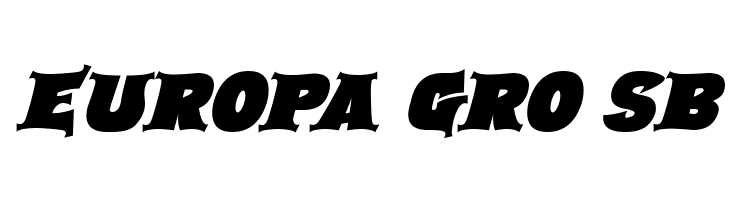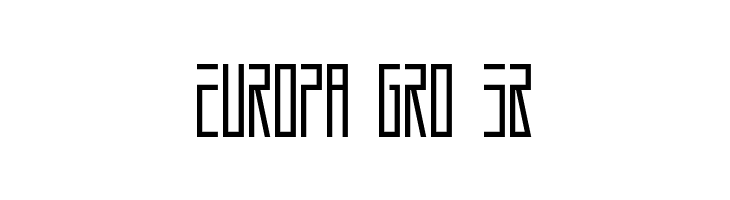
( Fonts by Alfin Ridhowi )
A playful and whimsical font with bold, rounded shapes and a hand-drawn feel.
A playful and whimsical script font with a hand-drawn appearance.
( Fonts by Dm Letter Studio )
Playful and bold handwritten font.
A whimsical, handwritten font with a playful and modern style.
A playful, handwritten font with thin, flowing lines and a whimsical style.
( Fonts by Ditya Ananto )
A playful, decorative font with sunburst patterns in each character.
A bold, geometric font with a 3D effect and textured interior.
( Fonts by Rodrigo German - RASDESIGN )
A bold, graffiti-inspired font with sharp, angular edges and dynamic style.
( Fonts by Novita Maria )
A bold, playful font with rounded strokes and a cartoonish style.
( Fonts by Display Studio )
A bold, angular font with a modern, edgy style.
( Fonts by Mohammed Rahman )
A bold, geometric font with a retro aesthetic, ideal for impactful designs.
( Fonts by Mohammed Rahman )
A bold, italicized retro font with high contrast and dynamic style.
A bold, angular font with a dynamic and energetic style.
A bold, graffiti-inspired font with sharp angles and high contrast.
A bold, modern font with strong, uniform strokes and high legibility.
A playful and elegant cursive font with fluid, graceful strokes.
A playful, candy-inspired font with bold, rounded letters connected by circular elements.
A playful and elegant script font with a modern, handwritten style.
A whimsical, curly font with intricate swirls and consistent stroke thickness.
A whimsical, spiral-themed decorative font with playful, artistic strokes.
A playful, whimsical script font with smooth, flowing lines and a handwritten feel.
( Fonts by Haidi Shabrina )
A whimsical, handwritten font with flowing, interconnected strokes.
A playful, handwritten font with elongated, whimsical characters.
A whimsical and decorative script font with intricate loops and flourishes.
A playful, hand-drawn font with tall, narrow characters and a whimsical style.
( Fonts by Letterafa Studio )
A whimsical and playful script font with decorative swirls and loops.
( Fonts by Staircase Studio )
Expressive handwritten script with playful, dynamic strokes.
A bold, cursive font with a lively, handwritten style.
A whimsical and decorative font with swirling embellishments.
A dynamic and flowing script font with elegant, cursive strokes.
A sharp, aggressive font with blade-like serifs and dynamic strokes.